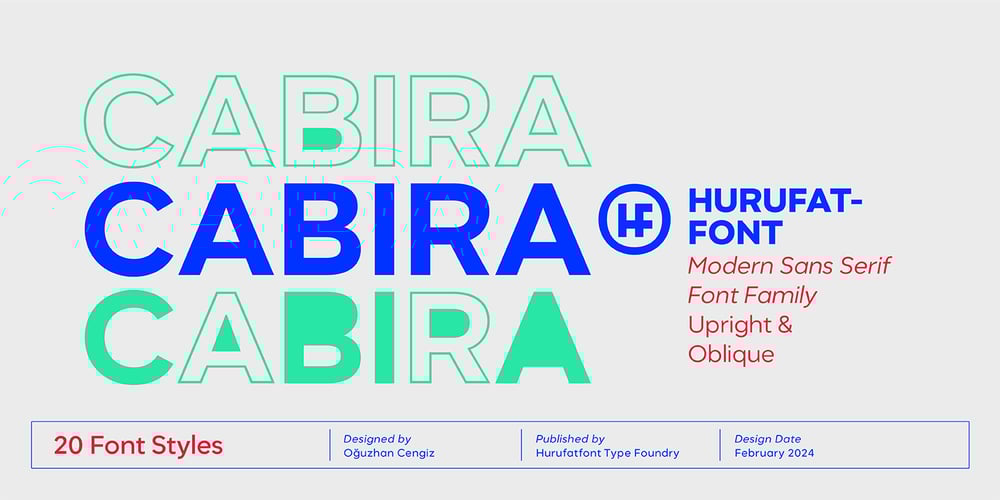
Cabira
Cabira font
Cabira Font Family was designed by Oğuzhan Cengiz and published by Hurufatfont. Cabira contains 20 styles and family package options. The Cabira font family offers rich design alternatives with glyph sets with different stain values as an alternative to the basic glyph set with geometric and neutral anatomy.It is ideal for both title and text use in areas such as branding, packaging, labels, social and artistic poster designs.